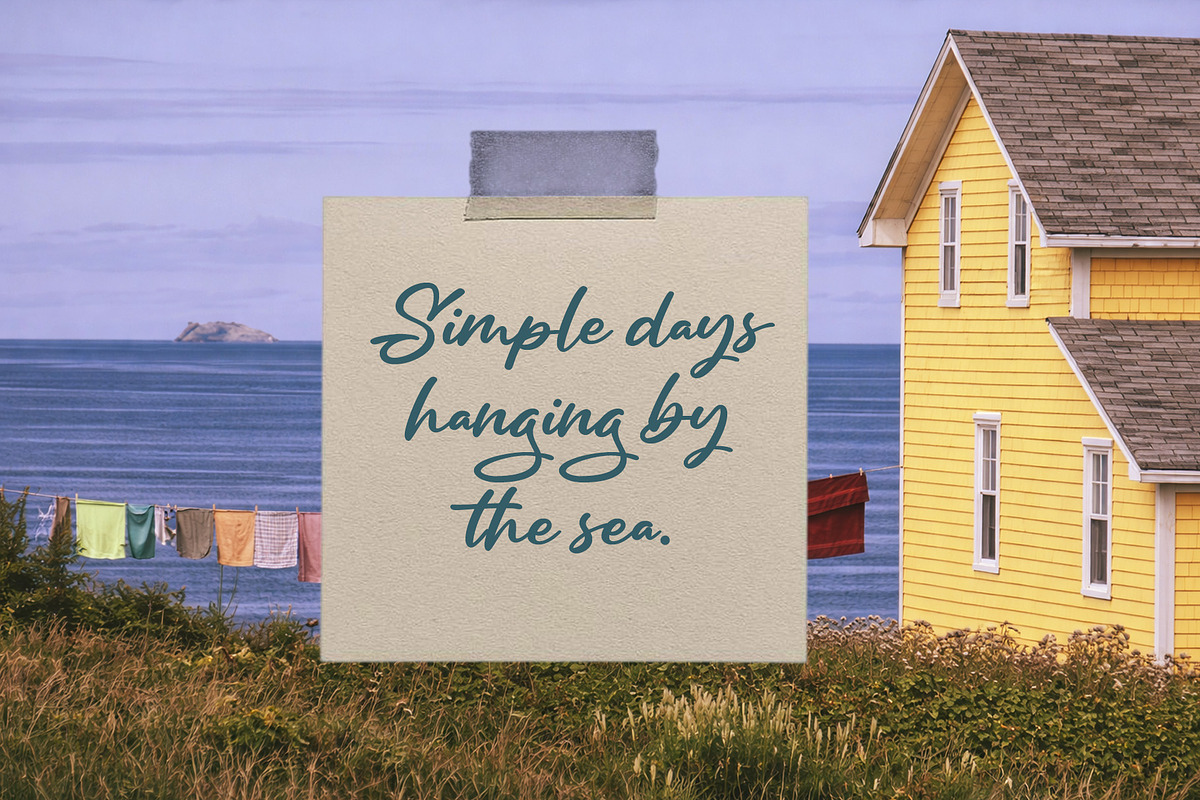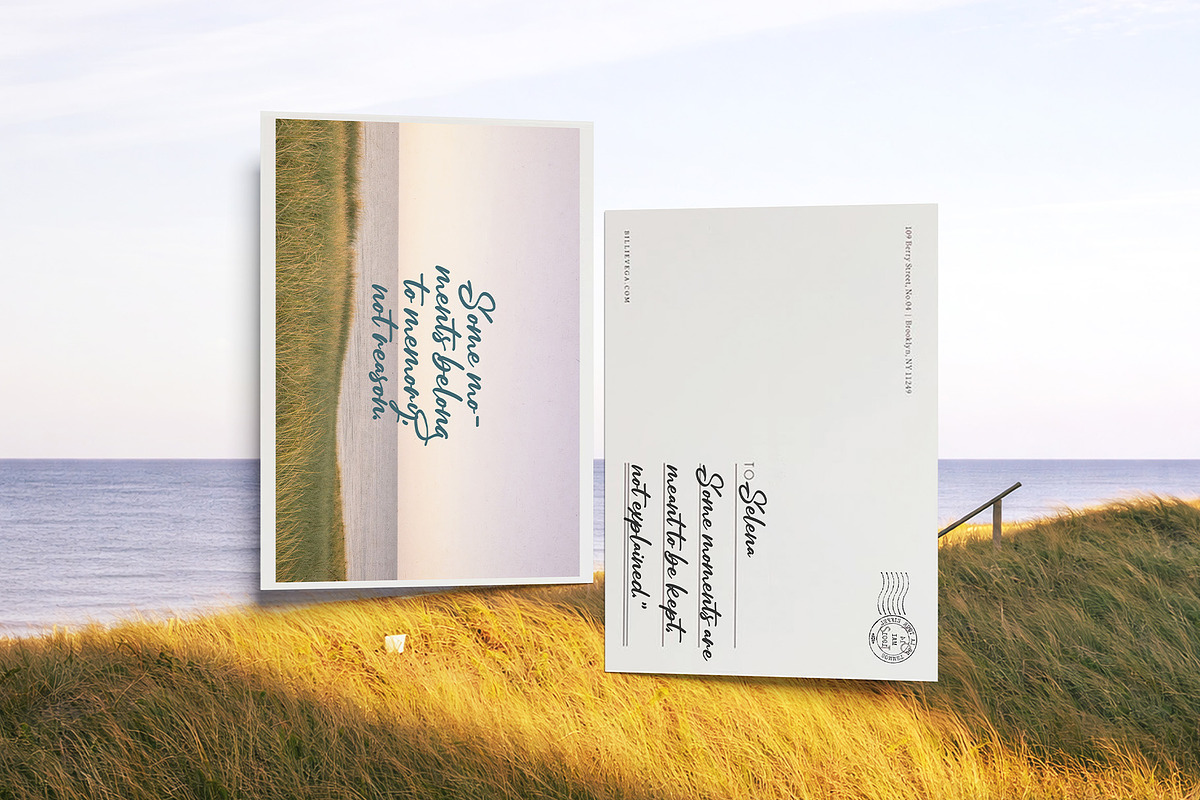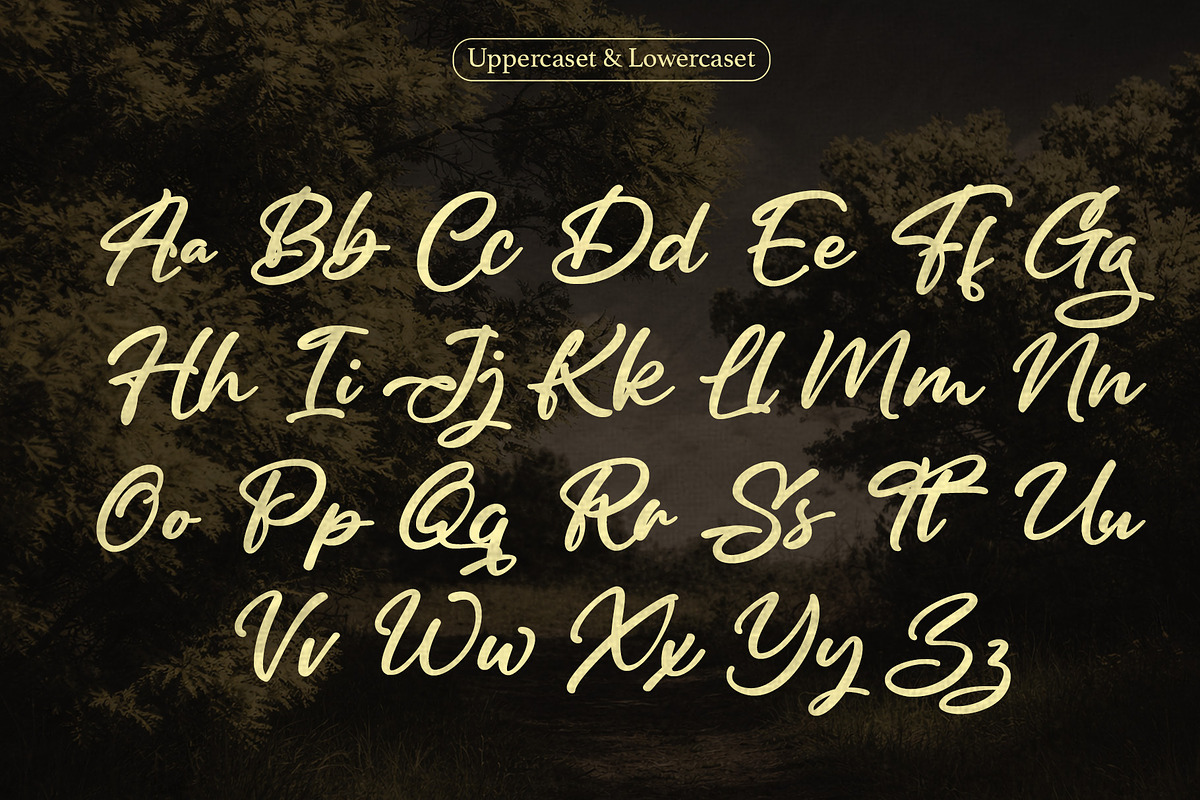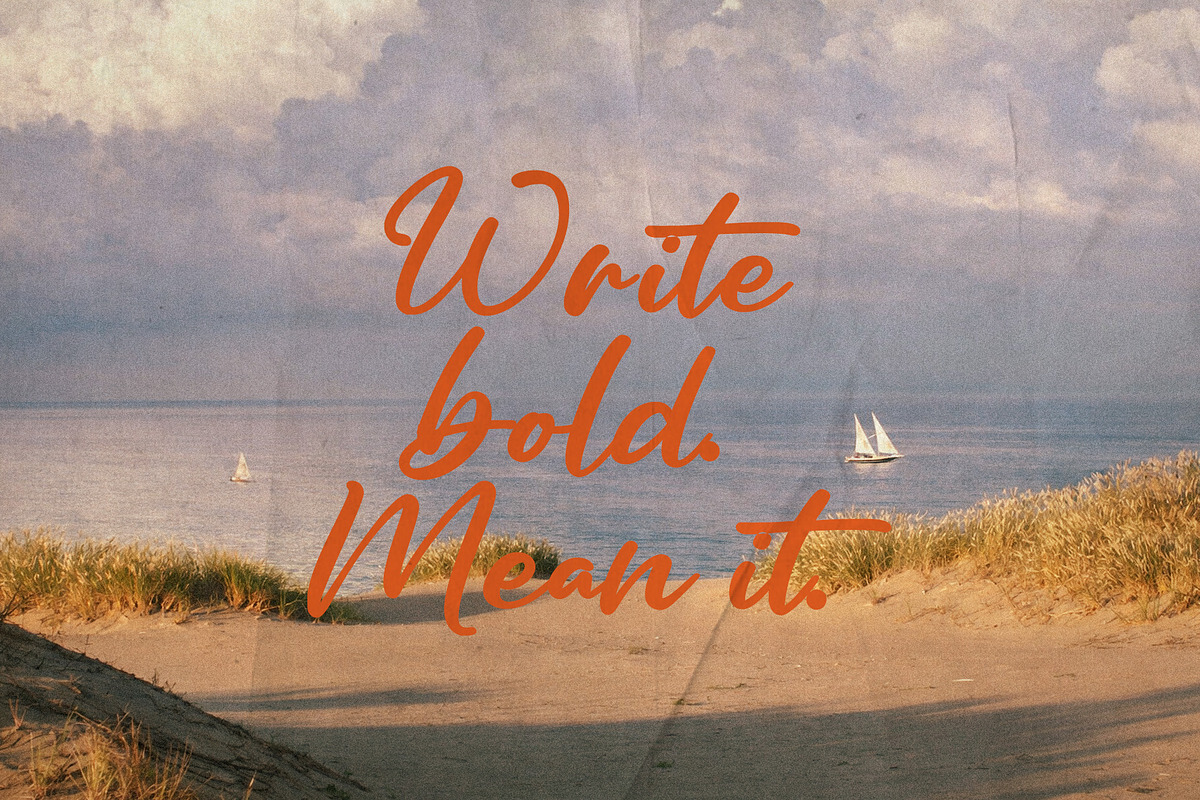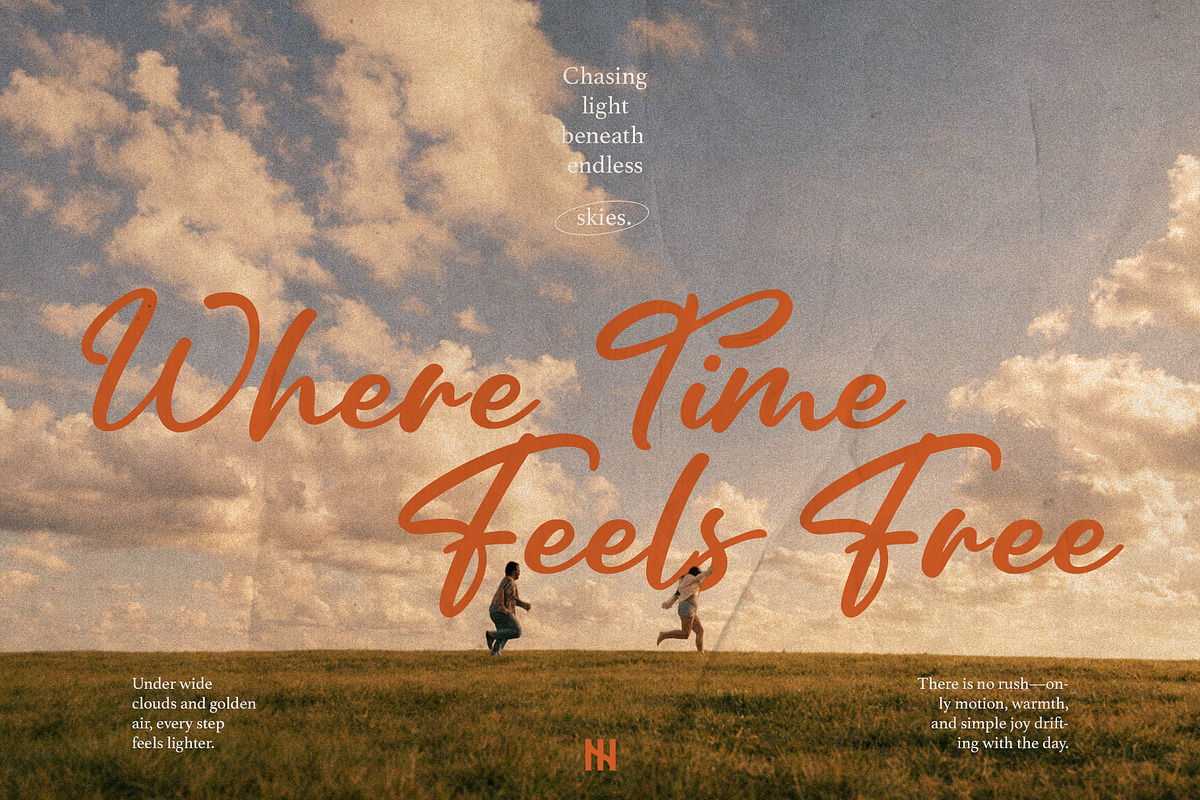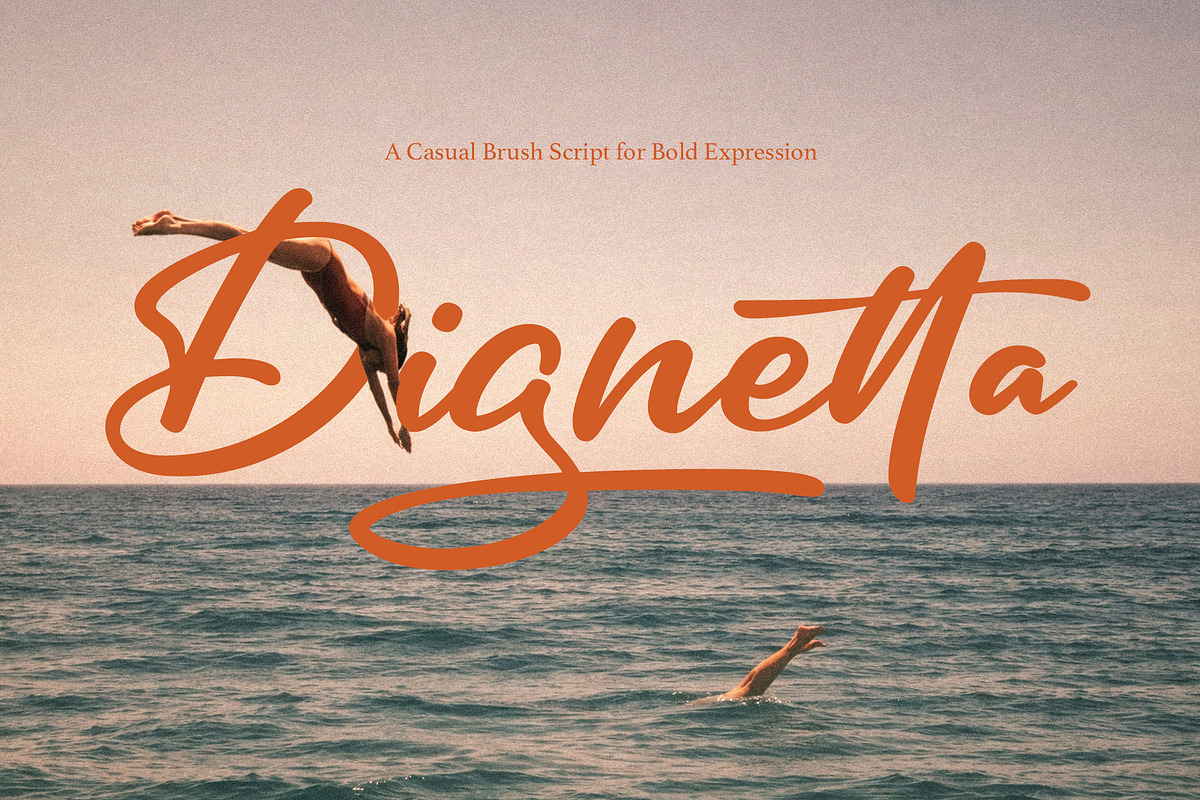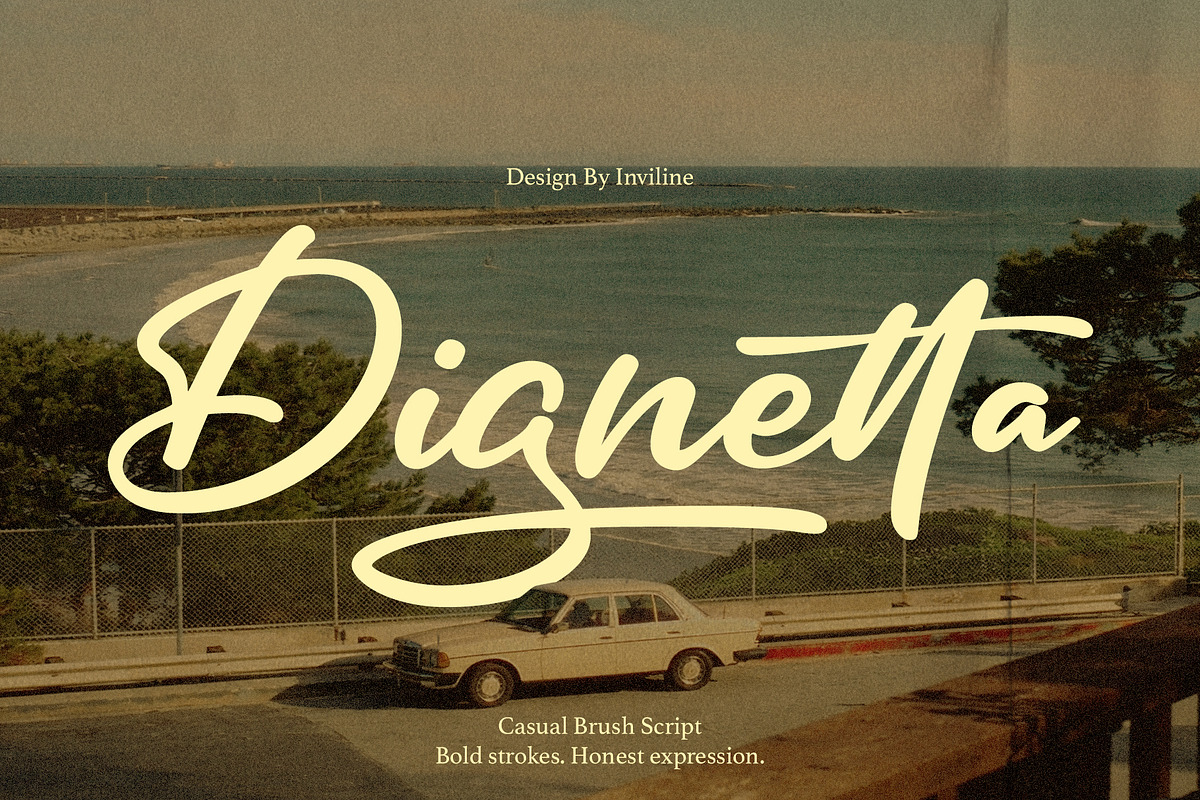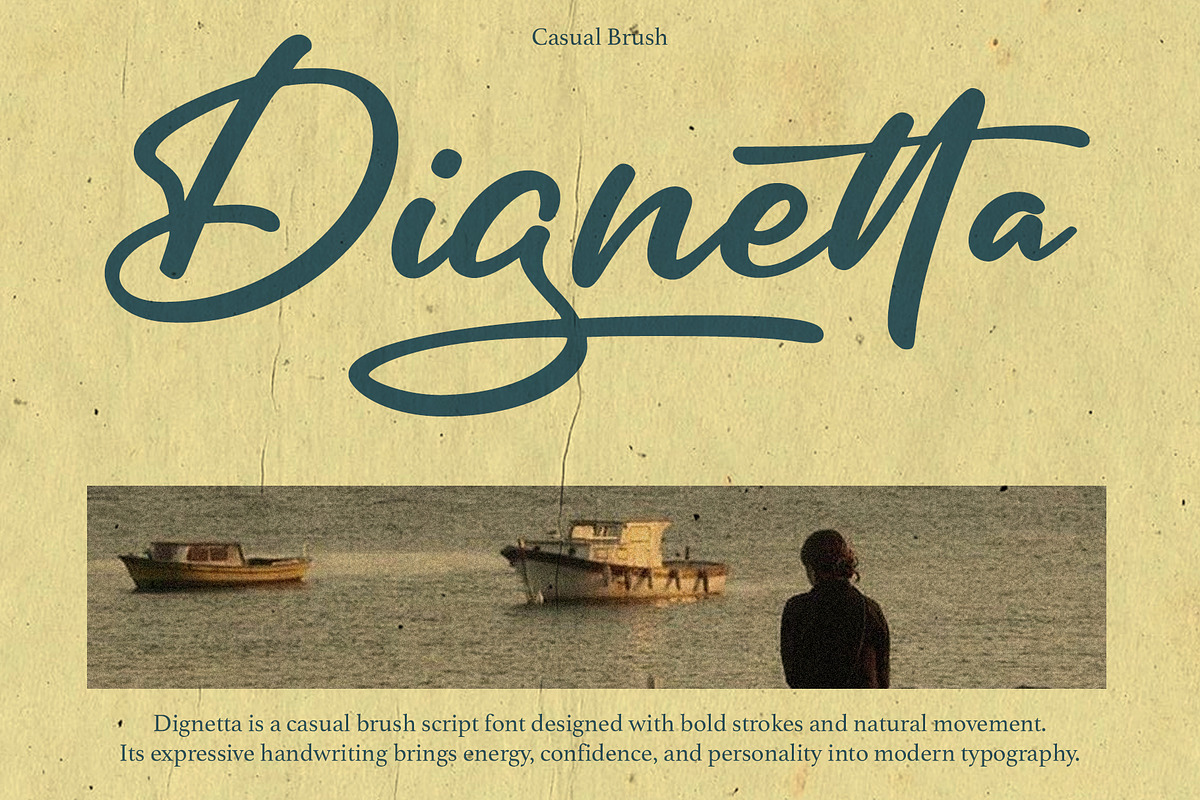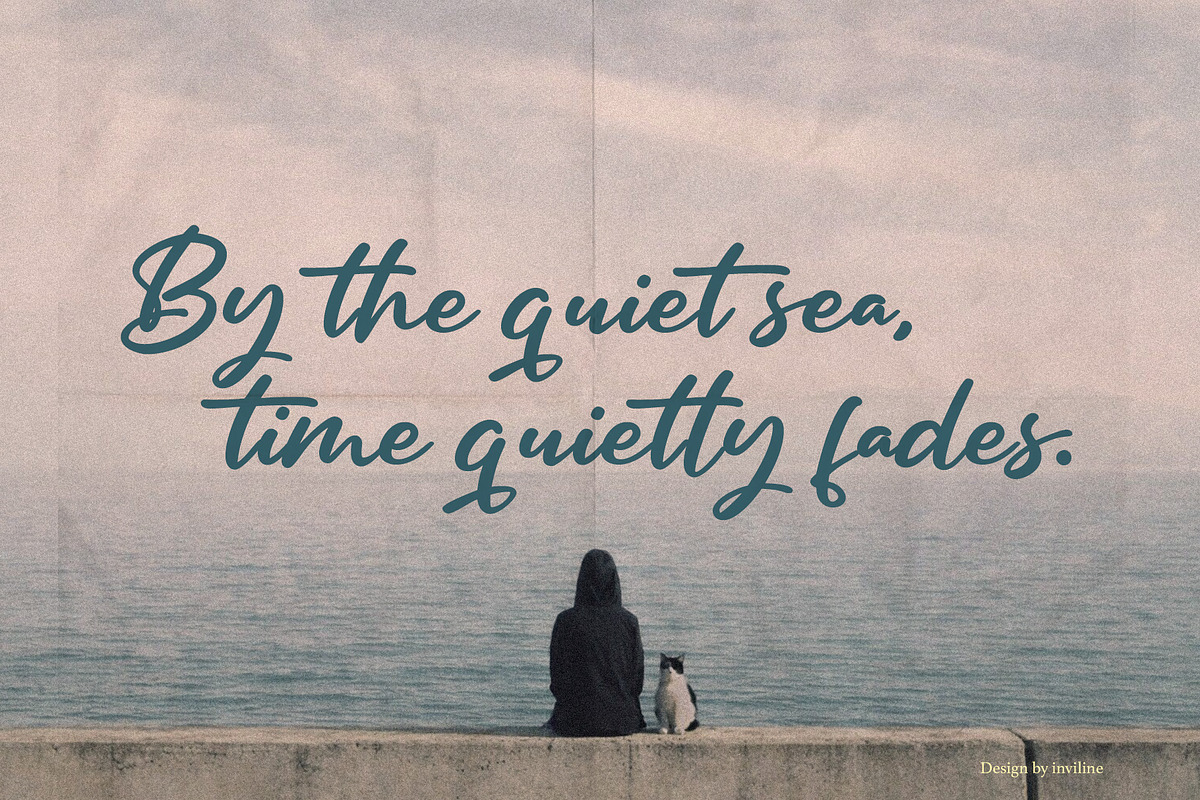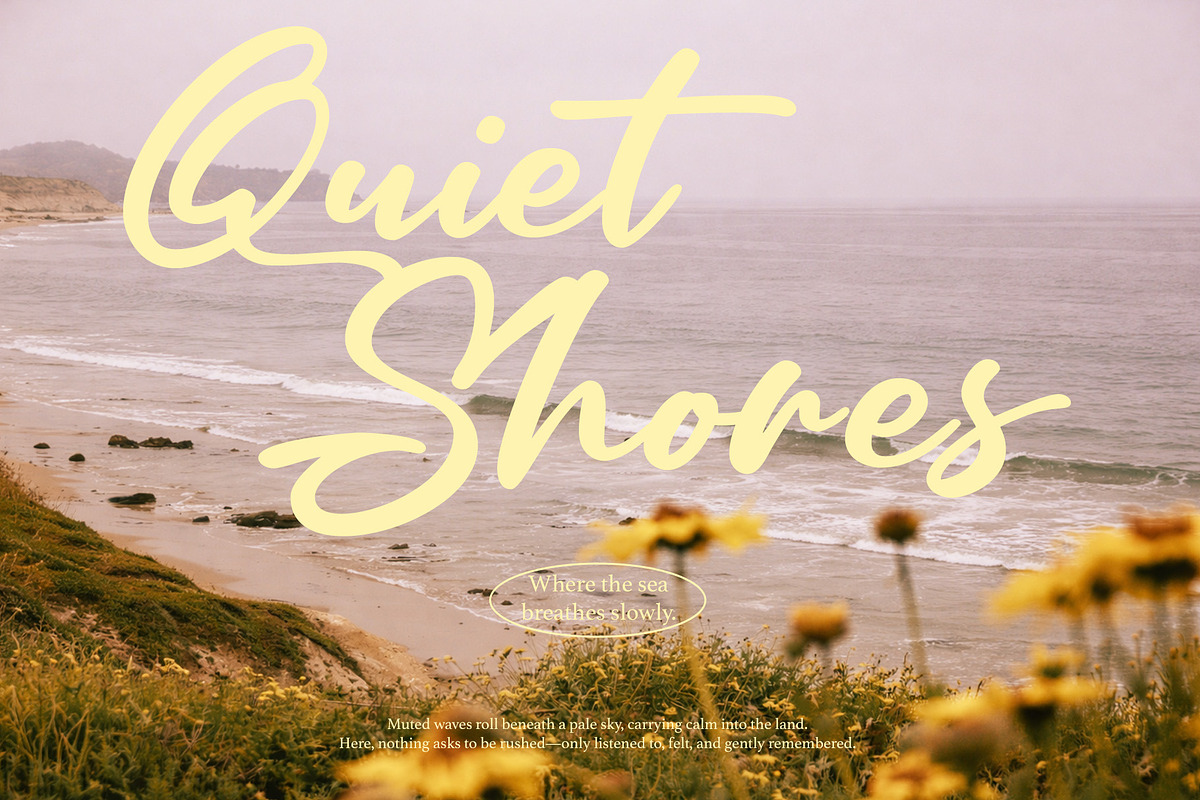
Dignetta - Casual Brush Script
Dignetta is a bold casual brush script that blends effortless strokes with authentic personality. Each curve flows with confidence, ideal for creators who value movement, warmth, and a touch of raw honesty. Designed to echo handwritten charm, Dignetta brings expressive energy into modern design, whether you're crafting quotes, branding, or nostalgic visuals.
Smooth brush texture
Quote graphics
Branding & logo
Social media posts
Greeting cards
Retro posters
Editorial titles